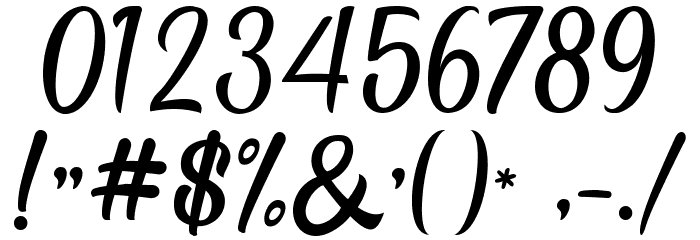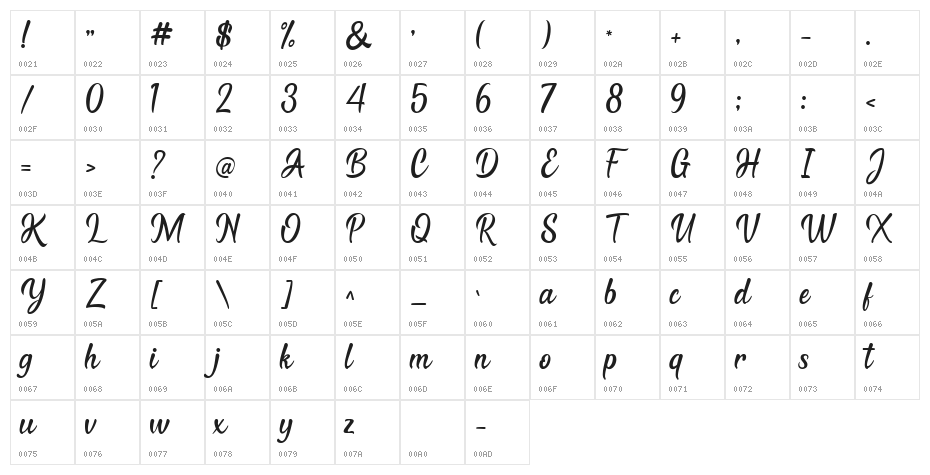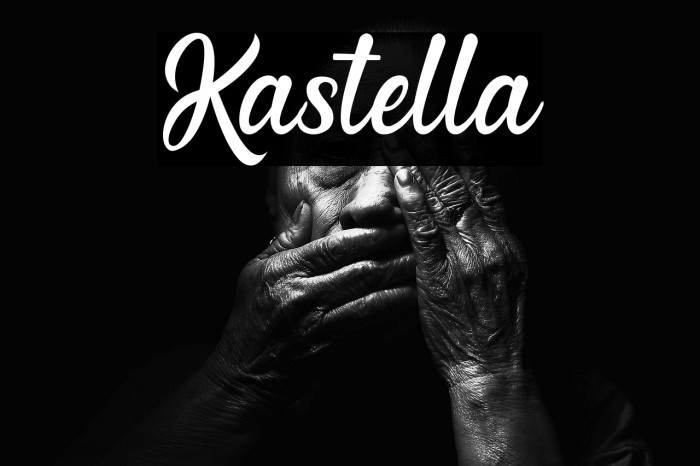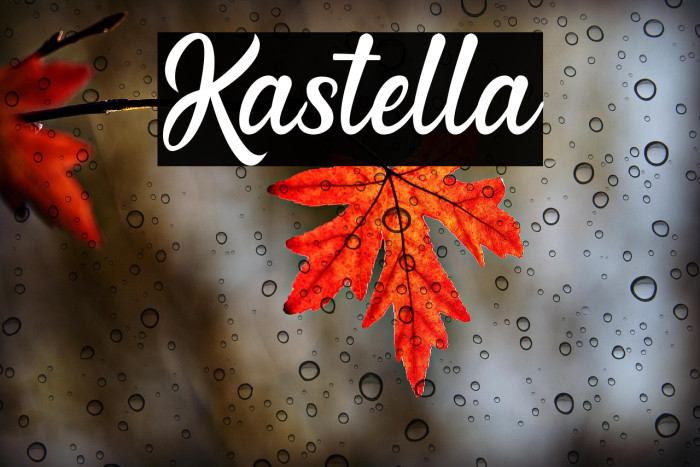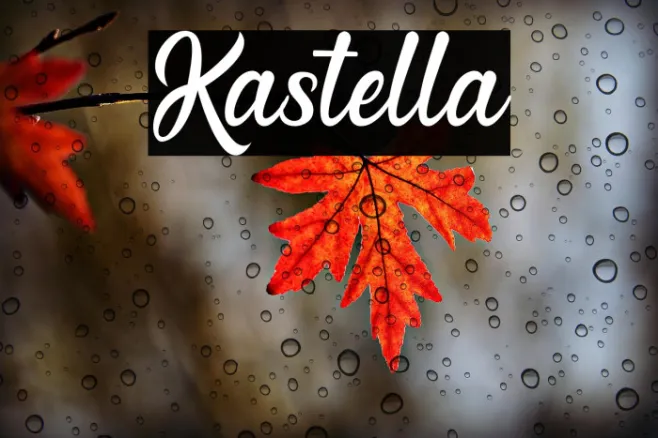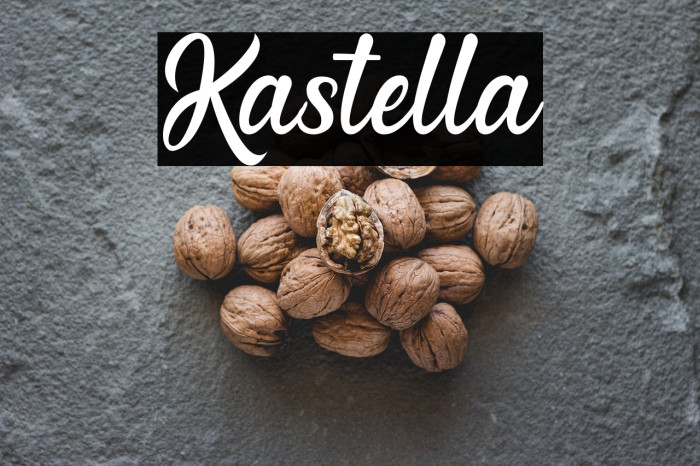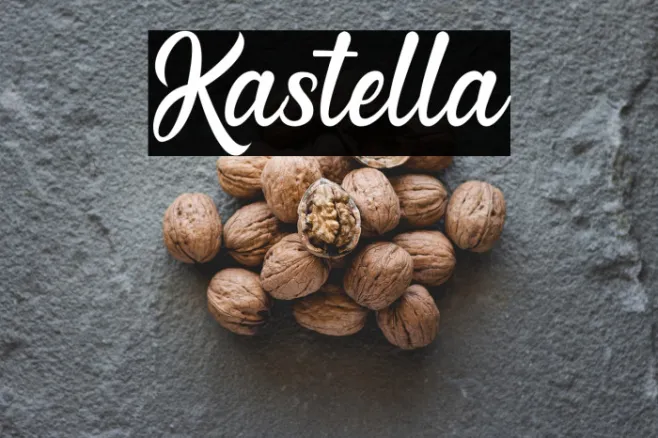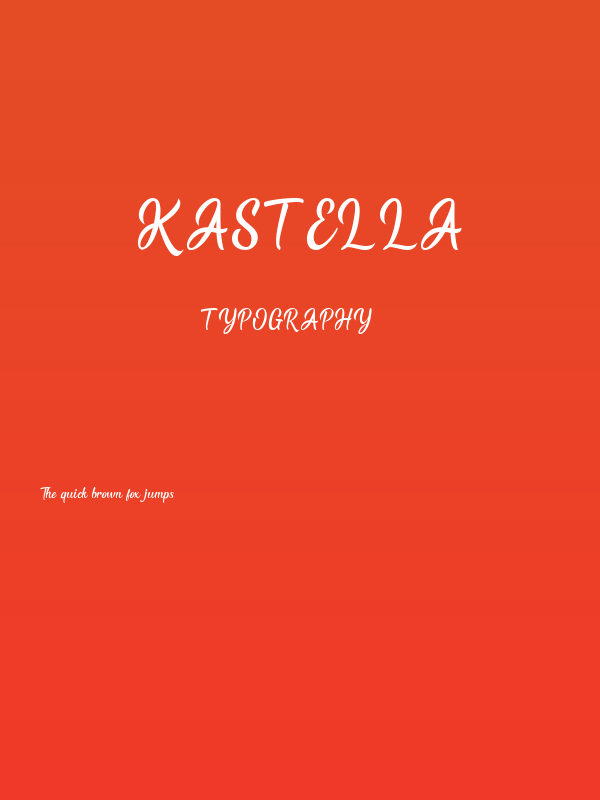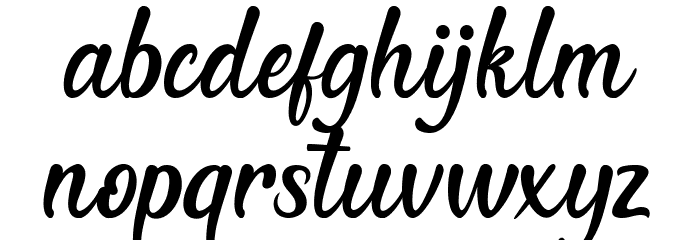
Kastella Font
Kastella Description
This elegant script font features a flowing, cursive style with smooth, rounded edges and a consistent stroke width. The uppercase letters are slightly more ornate, with graceful loops and swashes that add a touch of sophistication. The lowercase letters maintain a harmonious balance, making it easy to read while retaining its decorative appeal. The numerals and special characters are designed to match the overall aesthetic, ensuring a cohesive look across all text elements. This font exudes a sense of elegance and charm, making it suitable for a variety of creative applications.
| Use Case | Headlines, Invitations, Branding |
| Proposed Projects | Ideal for wedding invitations, greeting cards, branding, and elegant packaging designs. |